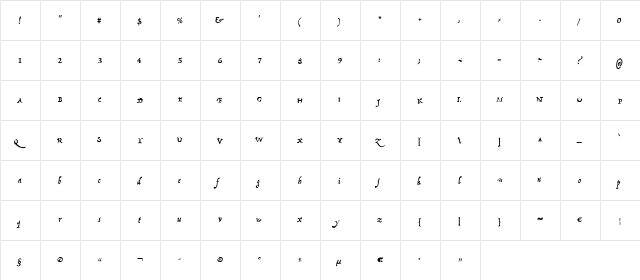
P22 Operina Pro Regular
| Foundry | James Grieshaber |
| Designer | James Grieshaber |
Design Context for P22 Operina Pro Typeface
P22 Operina Pro takes a measured approach to typography — its balanced proportions and neutral character make it a reliable workhorse for both digital and print work.